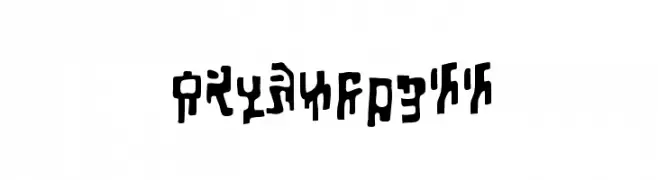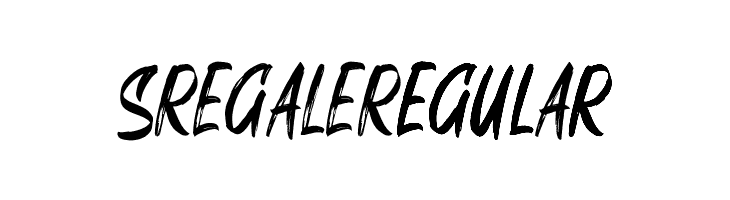
• SREGALE Regular schriftart
A bold and dynamic brush script font with energetic, fluid strokes.
• srfm_neon schriftart
A modern, neon-inspired font with a sleek, minimalistic design.
• SRG MARKER schriftart
• Sri Candy schriftart
A bold, playful font with whimsical curves and a modern decorative style.
• Sri Kandi schriftart
A cursive, handwritten font with a dynamic and fluid style.
• Sri Muliyo schriftart
A playful, hand-drawn font with a whimsical and casual style.
• Sri Papan schriftart
A playful, hand-drawn font resembling wooden planks assembled into letters.
• Sribu schriftart
A dynamic handwritten font with fluid and expressive strokes.
• Srikandi schriftart
A modern, geometric font with sleek lines and a sophisticated appearance.
• Srikandy schriftart
A bold, elegant script font with flowing cursive design.